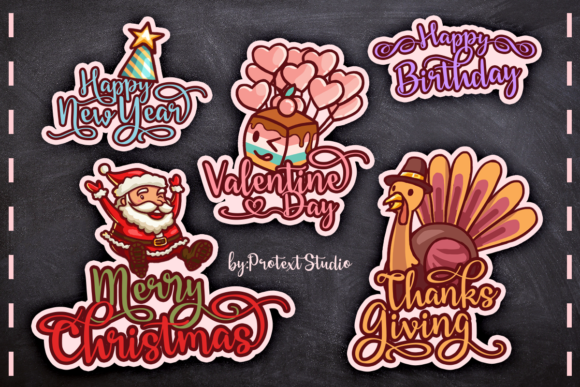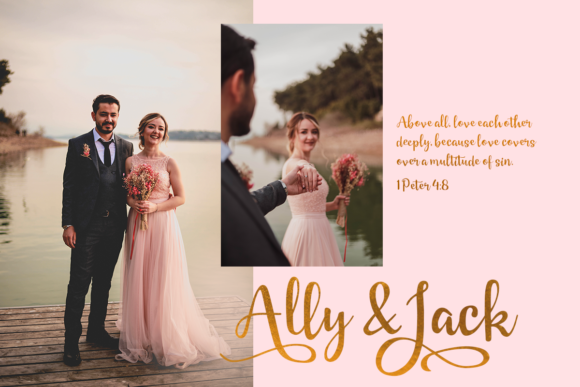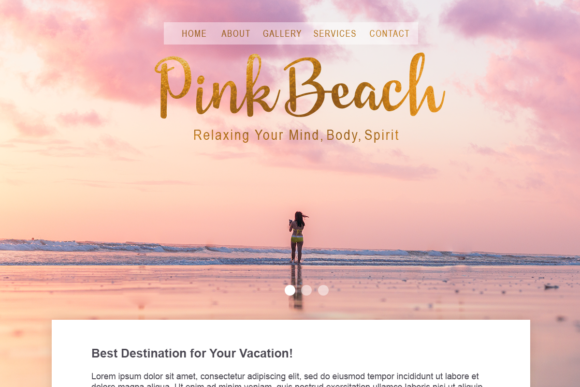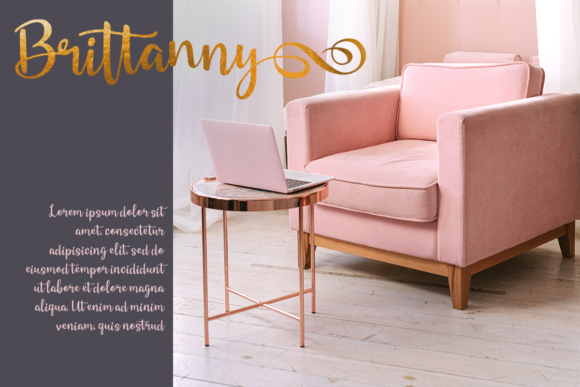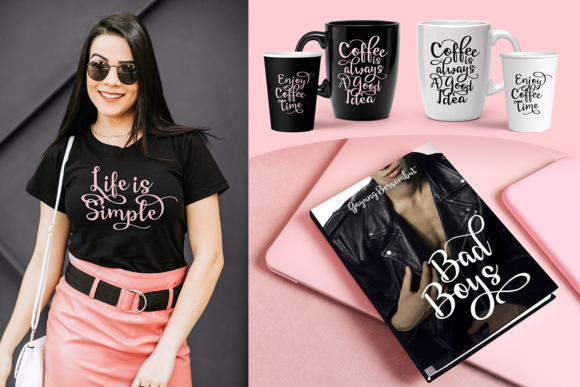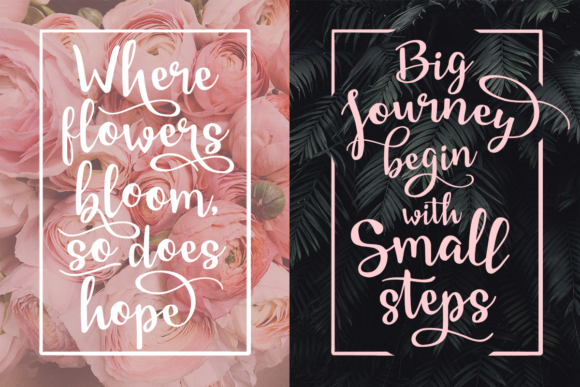
The Perfect Font for a Love Story: Berry Much Font
Have you ever stared at a blank page, waiting for the perfect font to bring your creative vision to life? That’s exactly what happened to me when I first laid eyes on the Berry Much Font. Its elegant, flowing script seemed to dance across the page, whispering sweet nothings to my imagination. I knew right then and there that I had to learn more about this charming calligraphy typeface.
Berry Much Font is a romantic and sweet calligraphy typeface designed to add a luxury spark to any design project. Its PUA encoded characters and ligatures make it a breeze to use, ensuring that your designs are as effortless as they are exquisite. Whether you’re a seasoned designer or just starting out, Berry Much Font is the perfect addition to your toolkit.
- Unique Characteristics: The font features a distinctive, playful style with exaggerated letterforms and bold lines, making it perfect for creating eye-catching headlines and titles.
Berry Much Font Review
Overall, I was excited to dive into the Berry Much Font, but my experience was a mix of delight and disappointment. Here’s what I found.
- Unique Style: The Berry Much Font has a quirky, hand-drawn feel that’s perfect for adding a touch of personality to your designs.
- Legibility: Despite its whimsical appearance, the font is surprisingly legible, making it suitable for a range of applications.
- Expressiveness: Berry Much Font is great for conveying emotions and adding tone to your text, which is a big plus for designers looking to create engaging content.
- Limited Font Sizes: The font’s quirky nature makes it challenging to use at very large or very small font sizes, where it can become distorted or difficult to read.
- Lack of Consistency: While the font’s hand-drawn feel is charming, it can be inconsistent in terms of letter spacing and overall flow, which may be a challenge for designers working on complex layouts.
Overall, Berry Much Font is a fun and expressive addition to any designer’s toolkit, but it may require some extra effort to get the most out of it. With a little creativity and finesse, it can be a valuable asset for designers looking to add some personality to their projects.
Tips: Use Berry Much Font for headings and titles to add a playful touch to your design. Experiment with different colors and combinations to achieve a unique look.
Tips: Use Berry Much Font for creative projects, such as greeting cards or posters. Combine it with bold graphics and bright colors to create a visually appealing design.
Tips: Use Berry Much Font for presentations or reports to add a touch of personality. Experiment with different font sizes and colors to create a visually appealing layout.
Berry Much Font is perfect for:
– Greeting cards and invitations
– Party decorations and signage
– Creative projects and DIY crafts